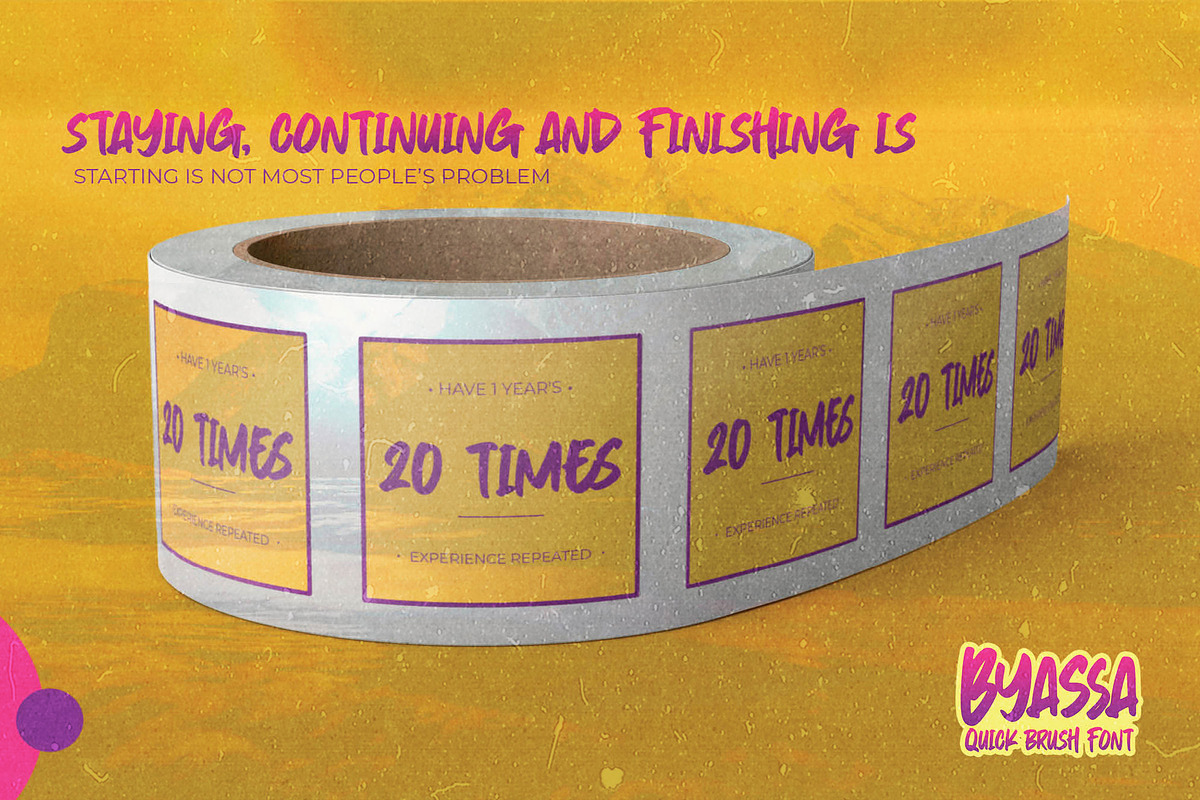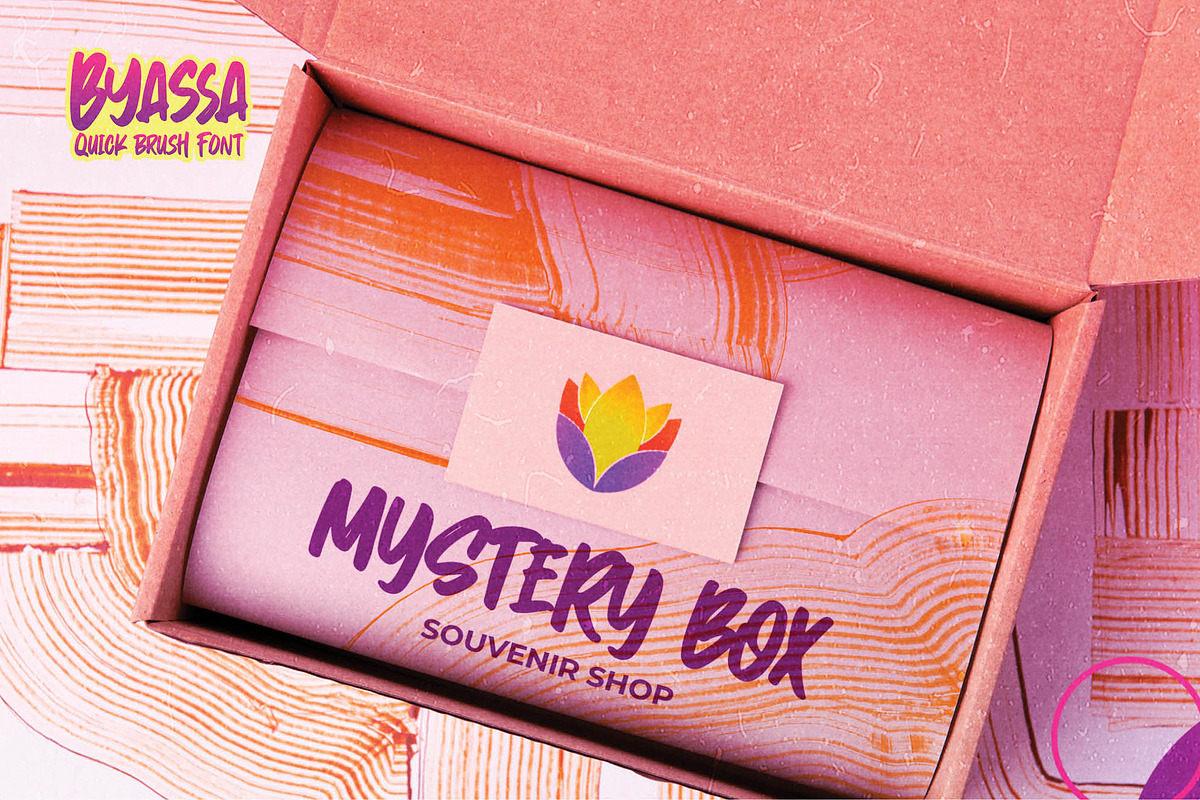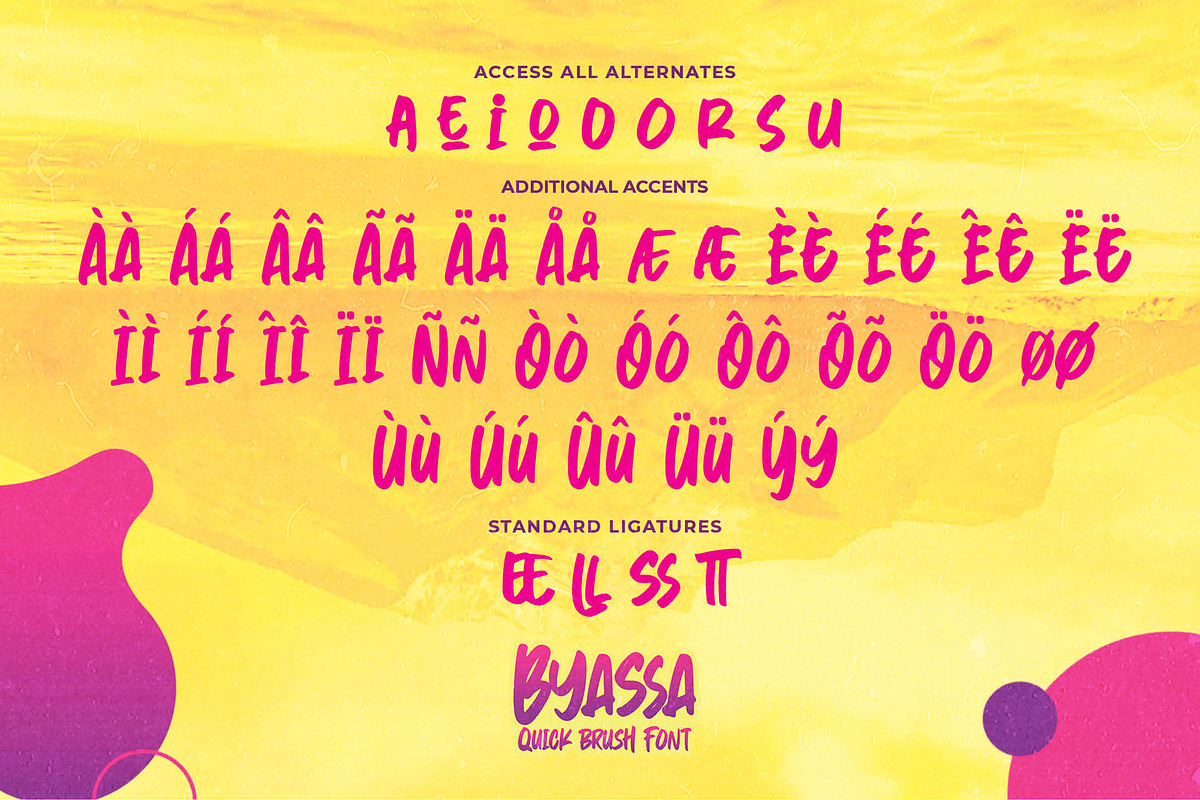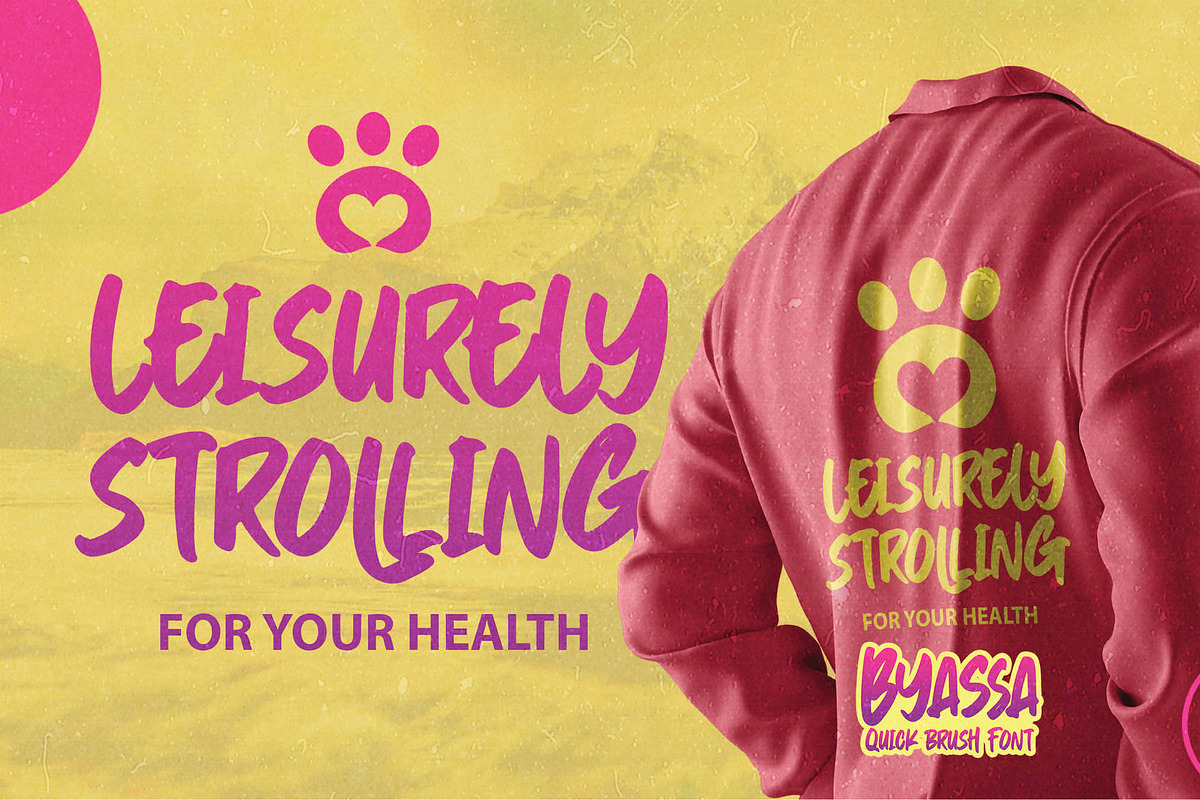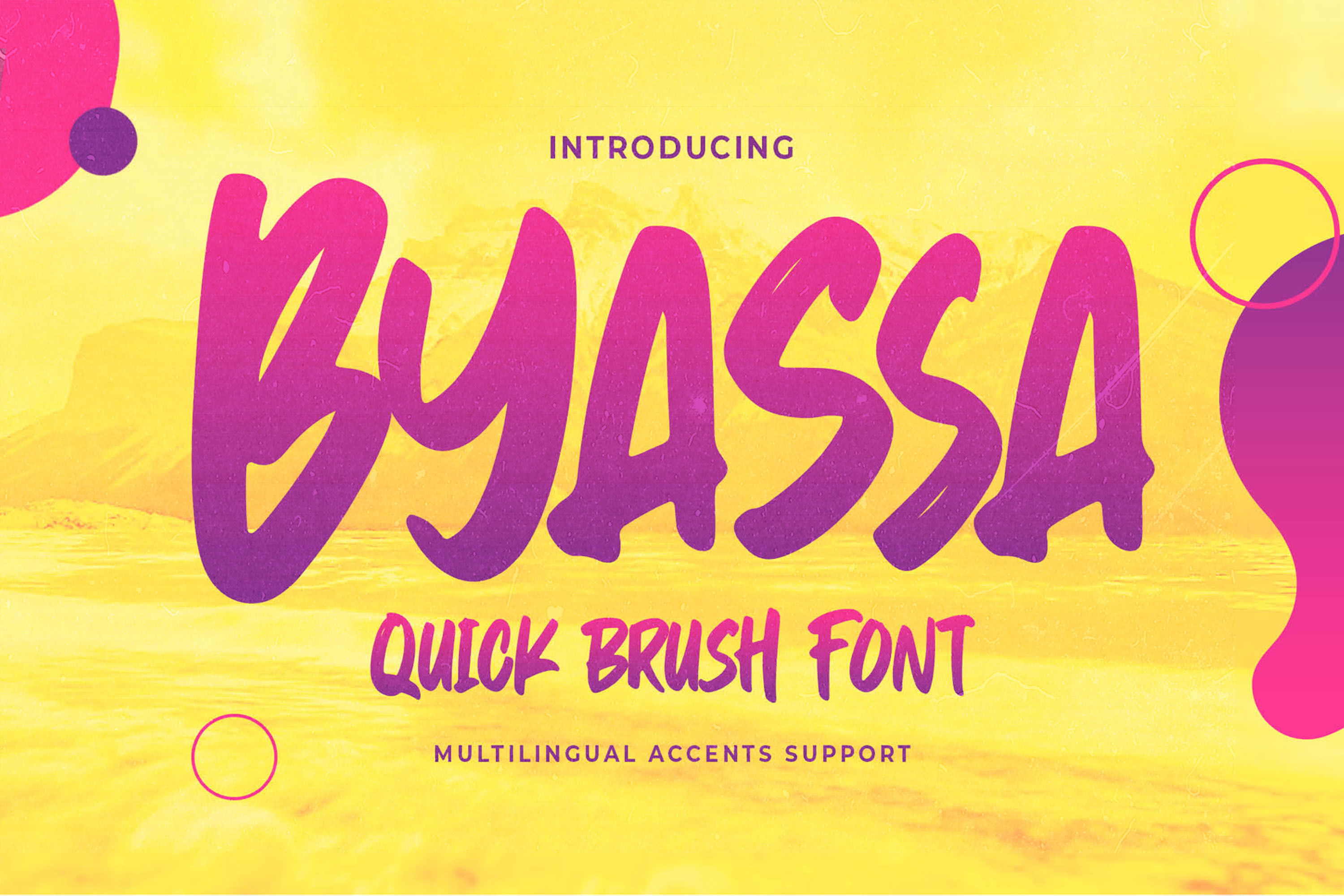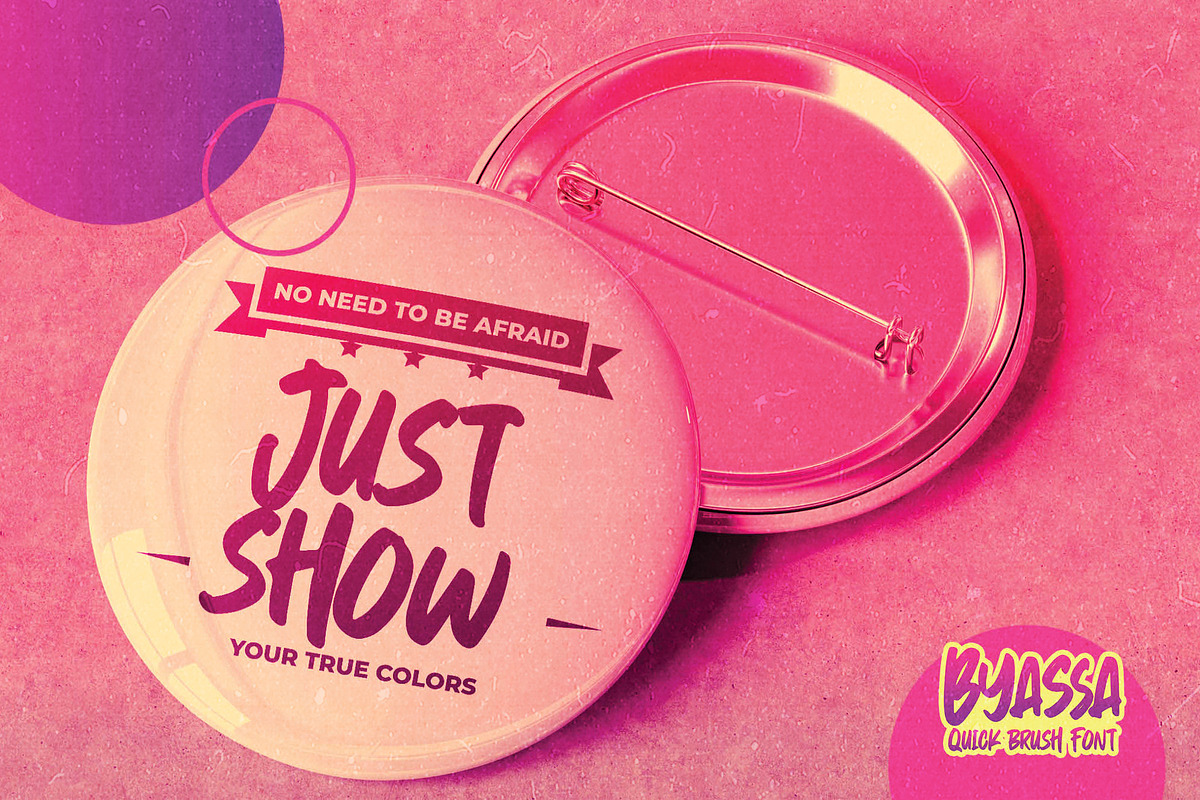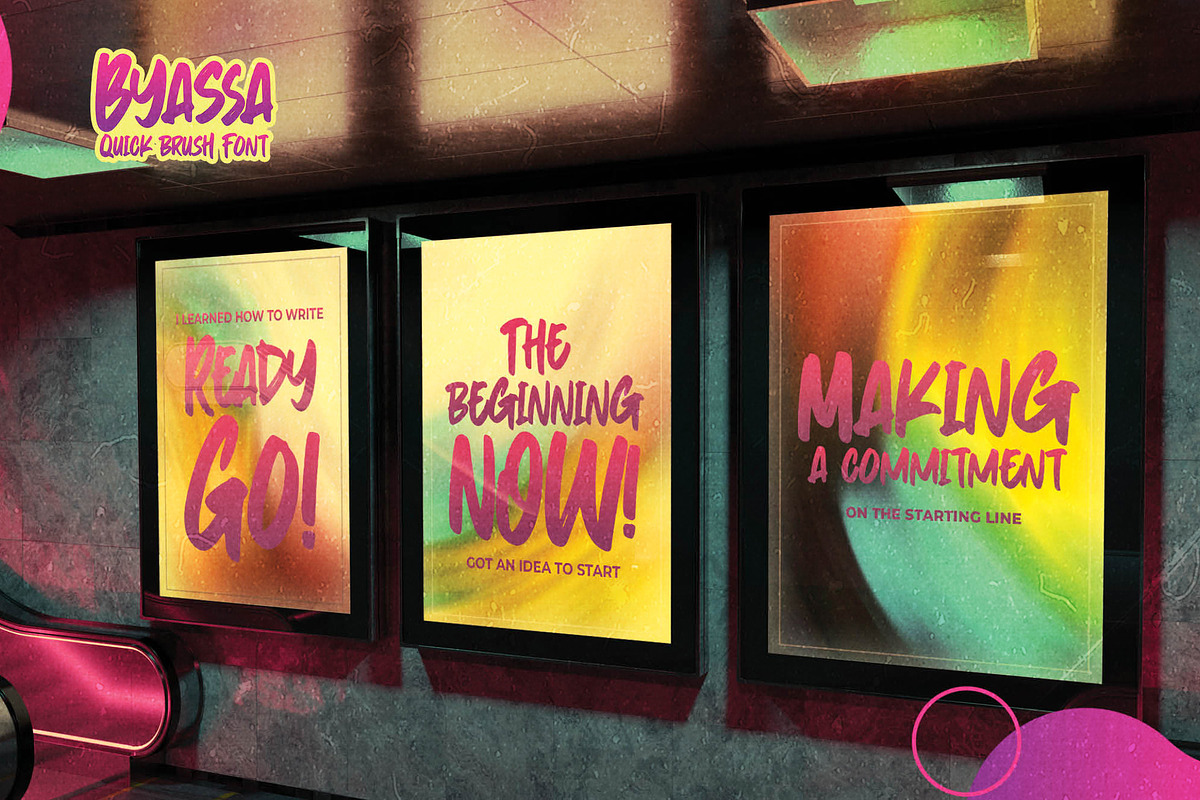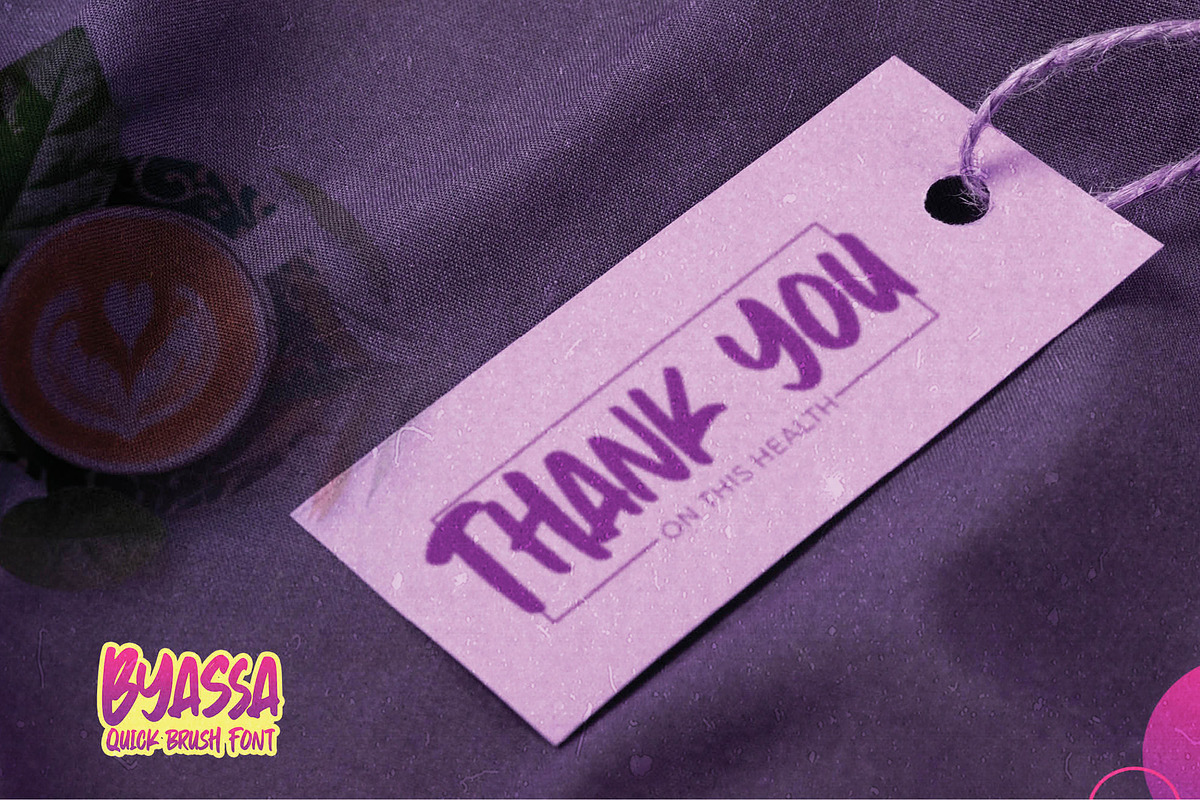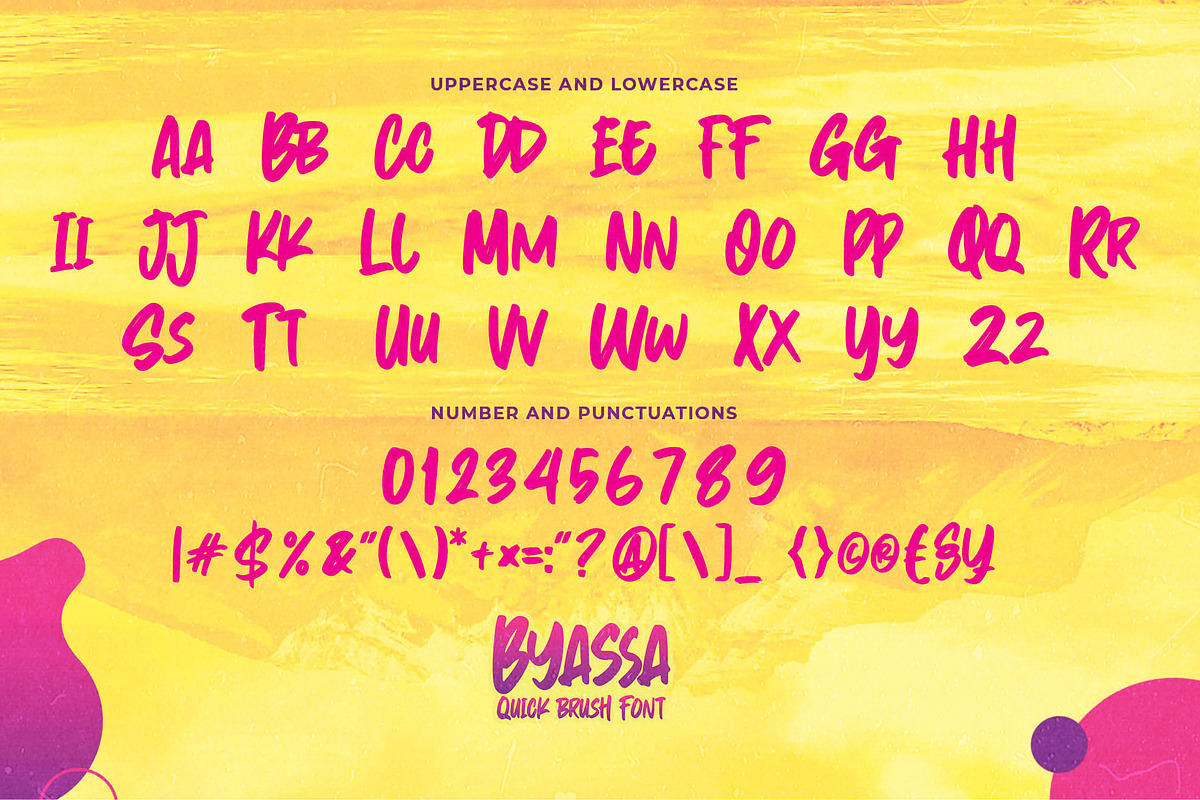
Byassa - Quick Brush Font
Hello Everyone, introduce our new product Font Byassa it is Quick Brush Font.This is a Textured Natural Style and classy style with a clear style and dramatic movement. This font Byassa is great for your next creative project such as logos, printed quotes, invitations, cards, product packaging, headers, Logotype, Letterhead, Poster, Design this font is great for your creative projects such as watermark on photography, and perfect for logos & branding, invitation,advertisements,product designs, stationery, wedding designs,label ,product packaging, special events or anything that need handwritting taste. That is has charming, authentic and relaxed characteristic more natural look to your text. You can activate 4 Ligatures glyphs and 9 Alternates glyphs OpenType panel.
- Alternates glyphs
- Ligatures glyphs